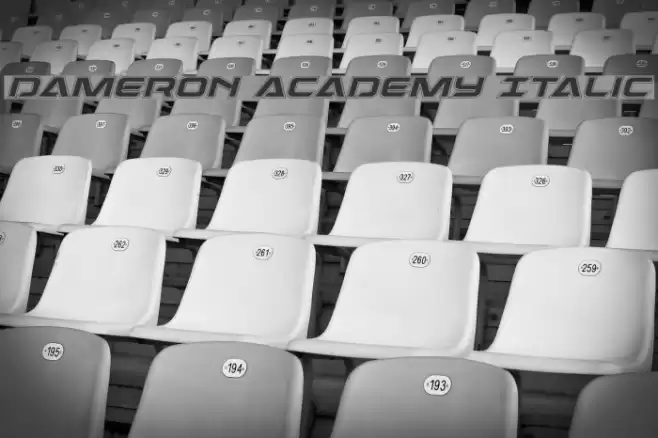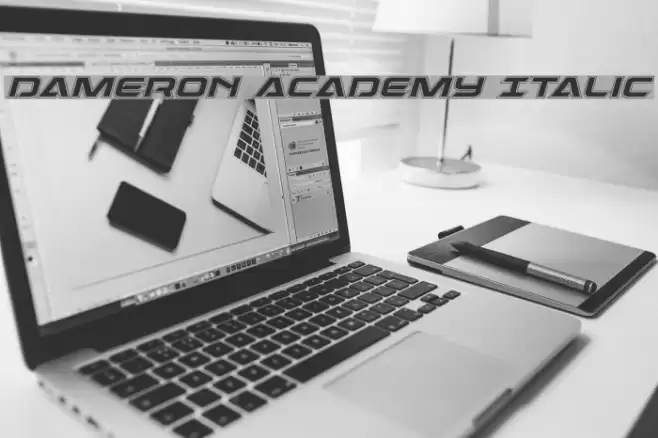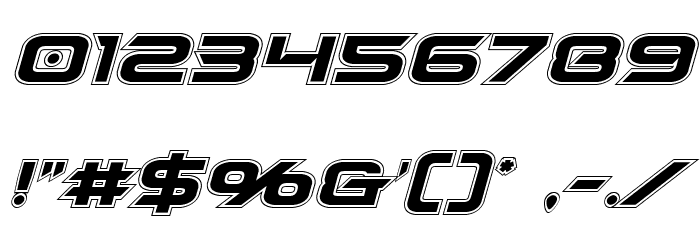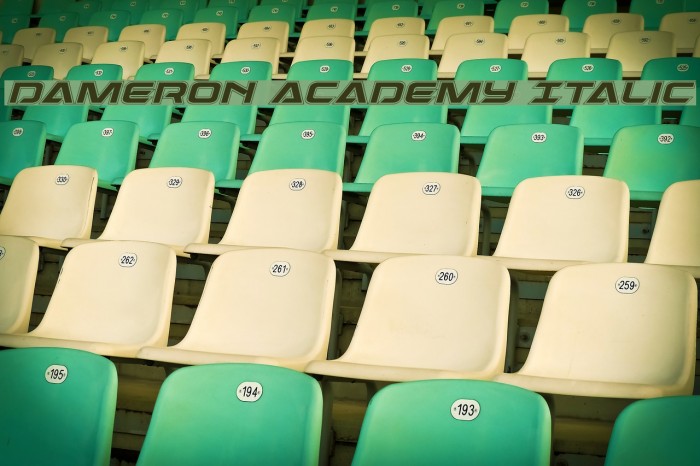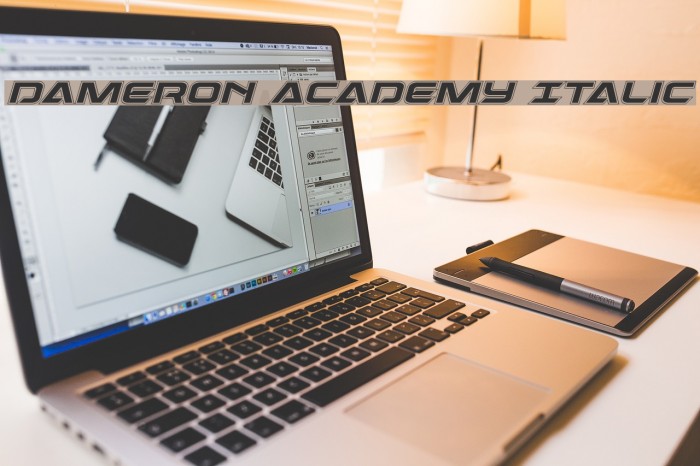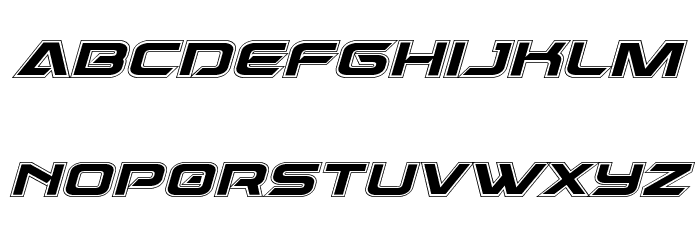
Dameron Academy Italic Font
Dameron Academy Italic Description
This font features a dynamic and futuristic design, characterized by its italicized and bold appearance. The letters are outlined with a double-layer effect, giving them a three-dimensional look. The angular and geometric shapes of the characters convey a sense of speed and modernity, making it ideal for projects that require a contemporary and edgy aesthetic. The numbers and special characters maintain the same stylistic approach, ensuring consistency across all elements. The font's unique style is suitable for eye-catching headlines and logos, where a strong visual impact is desired.
A bold, italicized font with a futuristic, three-dimensional outline design from Sci-fi fonts.
- Proposed Projects: Ideal for sci-fi themed designs, tech company logos, video game titles, and modern advertising campaigns.